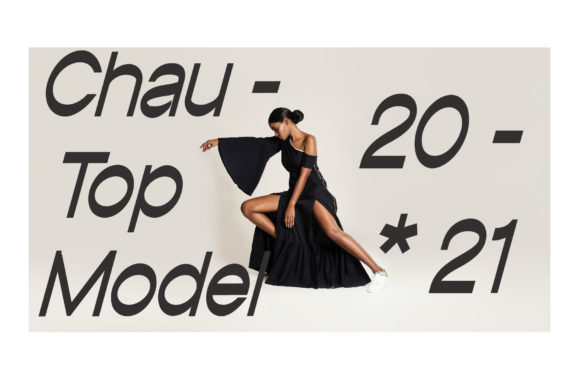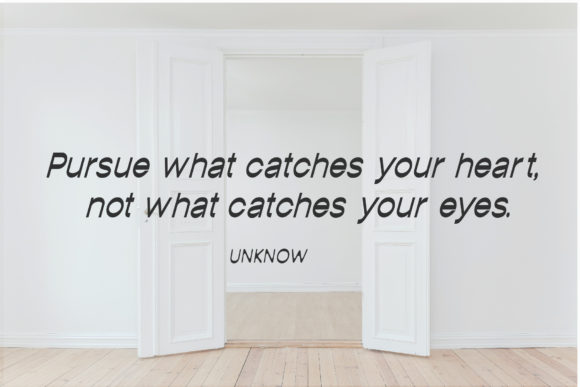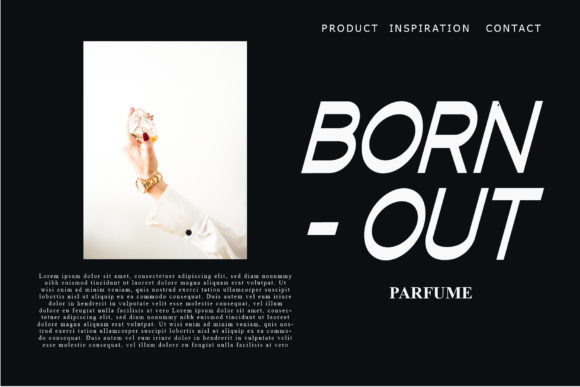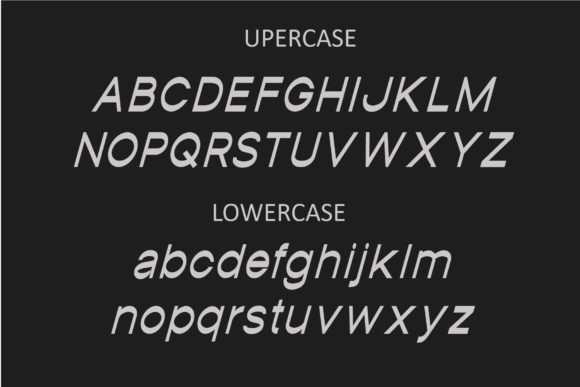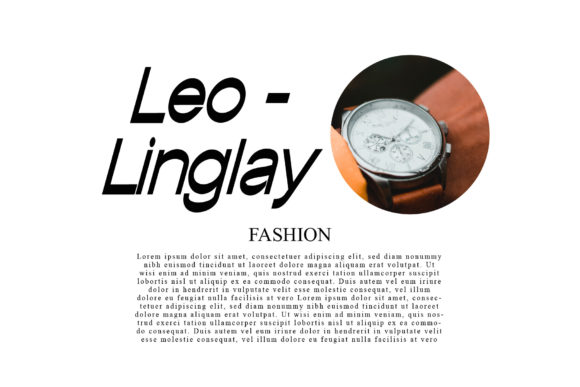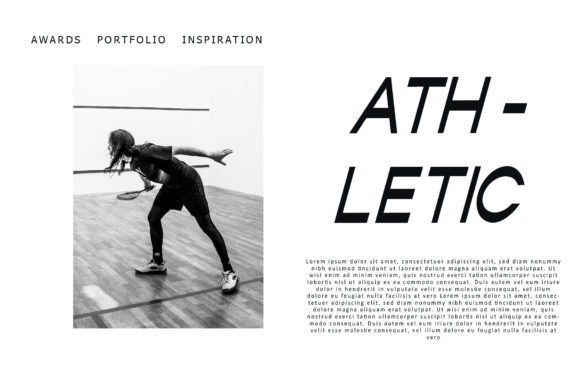
Ducky Font: The Minimal and Neat Sans Serif Font for Creative Projects
In the world of typography, a font can make or break a design. A well-chosen font can elevate a project from ordinary to extraordinary, while a poorly chosen one can have the opposite effect. For designers and crafters looking for a font that can add a touch of elegance and sophistication to their work, look no further than Ducky Font. In this article, we’ll take a closer look at Ducky Font, its features, and how it can be used to make your creative projects stand out.
What is Ducky Font?
Ducky Font is a minimal and neat sans serif font that is perfect for a wide range of creative projects. Its clean and simple design makes it highly versatile, allowing it to be paired with a variety of design styles and themes. Whether you’re working on a graphic design project, a crafting project, or a digital project, Ducky Font is a great choice.
Key Features of Ducky Font
So, what makes Ducky Font so special? Here are some of its key features:
- Minimal and Neat Design: Ducky Font has a clean and simple design that is free from unnecessary embellishments. This makes it perfect for projects where a clean and minimalist look is desired.
- Sans Serif: As a sans serif font, Ducky Font is perfect for digital projects, as it is highly legible on screens.
- Highly Versatile: Ducky Font can be paired with a wide range of design styles and themes, making it a great choice for a variety of projects.
- Easily Readable: Ducky Font is highly legible, even at small sizes, making it perfect for projects where text needs to be easy to read.
How to Use Ducky Font in Your Projects
So, how can you use Ducky Font in your creative projects? Here are a few ideas:
- Graphic Design Projects: Ducky Font is perfect for graphic design projects, such as brochures, flyers, and posters.
- Crafting Projects: Ducky Font can be used in crafting projects, such as card making, scrapbooking, and journaling.
- Digital Projects: Ducky Font is a great choice for digital projects, such as website design, social media graphics, and email marketing campaigns.
Tips for Getting the Most Out of Ducky Font
Here are a few tips for getting the most out of Ducky Font:
- Use it with a Bold Font: Pairing Ducky Font with a bold font can create a great contrast and add visual interest to your project.
- Experiment with Colors: Ducky Font can be used with a wide range of colors, so don’t be afraid to experiment and find the perfect color scheme for your project.
- Use it for Headings and Body Text: Ducky Font can be used for both headings and body text, making it a great choice for projects where a consistent look is desired.
In conclusion, Ducky Font is a minimal and neat sans serif font that is perfect for a wide range of creative projects. Its clean and simple design makes it highly versatile, and its highly legible design makes it perfect for projects where text needs to be easy to read. Whether you’re a designer or a crafter, Ducky Font is a great choice for adding a touch of elegance and sophistication to your work.